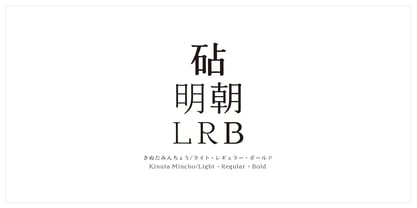
KinutaMincho StdN
by Kinuta Font Factory
The design of the Kinuta Mincho style of kanji, kana, Latin and numbers is based on two design concepts: gentleness and ma. Kanji characters are smooth and elegant due to the absence of straight lines, a feature that is particularly noticeable in larger sizes. The Latin alphabet has characters that use elements from the Chinese characters. This is an unprecedented collaboration of Western and Japanese elements. The eye flows smoothly when the text is assembled. 3 Weights available.